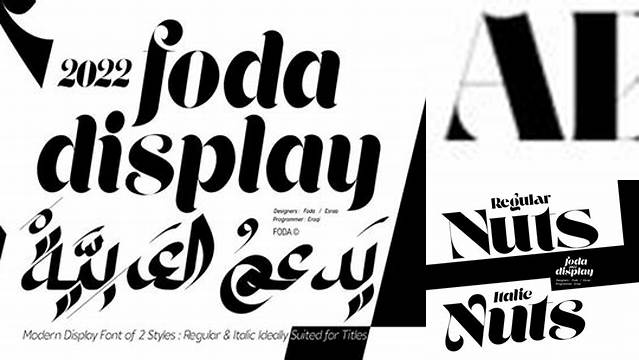
Are you looking to elevate your design projects with a unique and captivating font? Look no further! The Foda Display Font is a fantastic choice for designers and creatives seeking a modern, eye-catching typeface. This comprehensive guide will dive deep into the world of Foda Display Font, providing you with everything you need to know about its features, uses, and how to download it for free in TTF format. Let's get started, guys!
What is Foda Display Font?
Foda Display Font is a contemporary typeface characterized by its bold, geometric shapes and clean lines. Its distinct design makes it particularly well-suited for headlines, posters, logos, and other display purposes where you want to make a strong statement. The font's unique character stems from its slightly condensed letterforms and sharp angles, giving it a modern and edgy feel. Imagine using it for a bold magazine cover, a striking website header, or even a cool branding project – Foda Display Font can handle it all!
One of the key aspects that makes Foda Display Font so appealing is its versatility. While it definitely shines in large-format designs and attention-grabbing headlines, it can also be used in smaller sizes for body text, although sparingly. The font's legibility remains relatively high due to its clear letterforms and well-defined spacing, even when scaled down. However, its true power lies in its ability to grab the reader's attention and convey a sense of modern sophistication. If you're aiming for a design that stands out from the crowd, Foda Display Font is definitely a font to consider.
The font family itself often includes various weights, ranging from light to bold, allowing for further flexibility in design applications. You might find different versions of Foda Display Font offering variations in the letterforms, such as rounded or more angular edges, to suit specific aesthetic preferences. This versatility ensures that you can find the perfect style within the Foda family to complement your project's overall look and feel. Furthermore, the font typically includes a full set of uppercase and lowercase letters, numerals, punctuation marks, and symbols, making it a complete solution for your typographic needs. This comprehensive character set ensures that you have all the tools you need to create stunning designs without limitations.
Key Features of Foda Display Font
When choosing a font, understanding its key features is crucial. Foda Display Font boasts several characteristics that make it a standout choice:
- Bold and Geometric Design: The font's strong geometric shapes and clean lines create a modern and impactful visual presence. Think sharp angles and confident strokes – it's a font that demands attention!
- High Legibility: Despite its distinct style, Foda Display Font maintains good legibility, ensuring your message is easily readable. Even with its unique letterforms, the font is designed to be clear and understandable, preventing any eye strain for the reader.
- Versatile Applications: From headlines to logos, this font excels in various design projects. Whether you're designing a website, a poster, or a branding identity, Foda Display Font can adapt to your needs and elevate your project to the next level.
- Multiple Weights (Potentially): Depending on the specific version, Foda Display Font may come in various weights, offering design flexibility. This allows you to create visual hierarchy and emphasis within your designs, making your content more engaging and dynamic.
The bold and geometric design of Foda Display Font is perhaps its most defining feature. The sharp angles and clean lines give it a contemporary and edgy feel, making it perfect for designs that need to make a statement. The font's strength lies in its ability to command attention without sacrificing readability. This balance between visual impact and clarity is what makes Foda Display Font such a versatile choice for various design projects.
Another key aspect of Foda Display Font is its legibility. While some display fonts can be difficult to read in smaller sizes, Foda Display Font maintains a high level of clarity thanks to its well-defined letterforms and spacing. This makes it suitable for not only headlines and titles but also shorter paragraphs or captions where you want to add a touch of modern flair. However, it's worth noting that Foda Display Font is primarily designed for display purposes, so it's generally best to use it sparingly in body text.
The font's versatility is further enhanced by its potential availability in multiple weights. If you can find versions of Foda Display Font in light, regular, bold, and even extra-bold weights, you have even more creative options at your fingertips. Different weights can be used to create visual hierarchy within your design, emphasize certain words or phrases, and add depth and dimension to your typography. This flexibility makes Foda Display Font a valuable asset in any designer's toolkit.